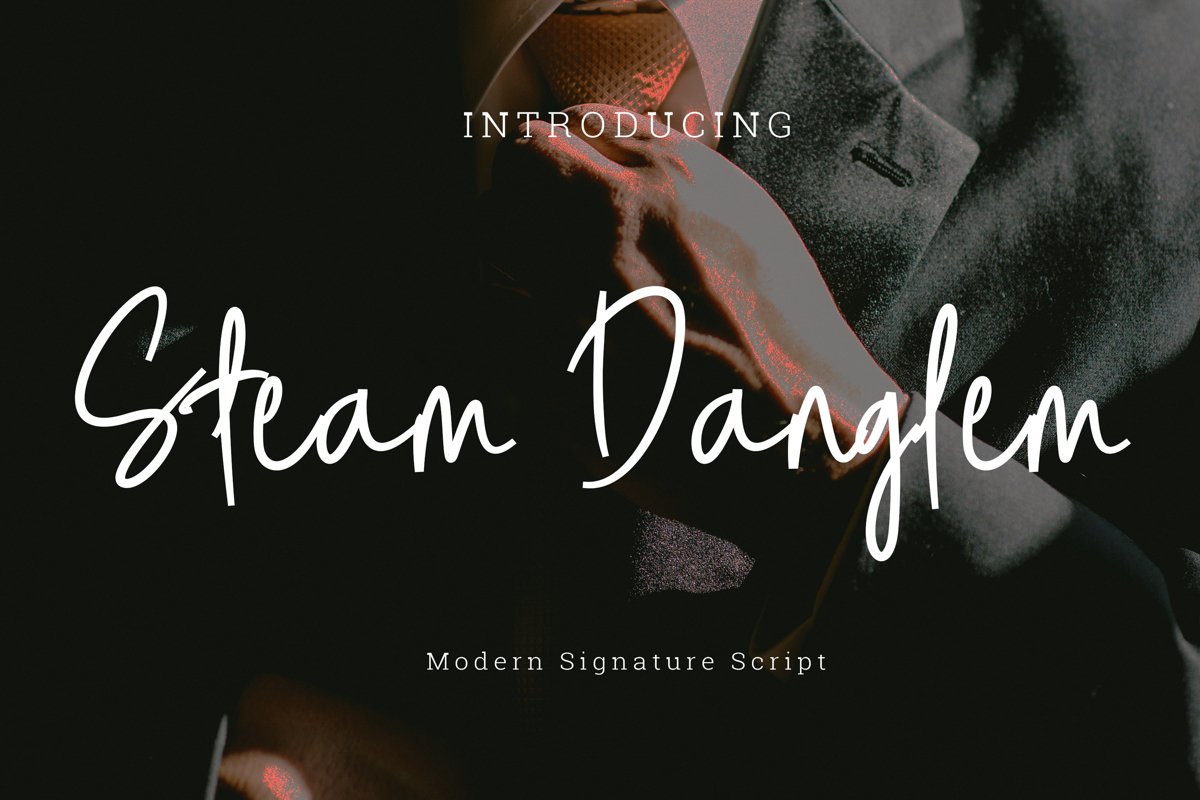
Steam danglem signature Font Script
SteamDanglem
Steam danglem signature Font Script,coming with monoline script style.i hope you enjoy with this font